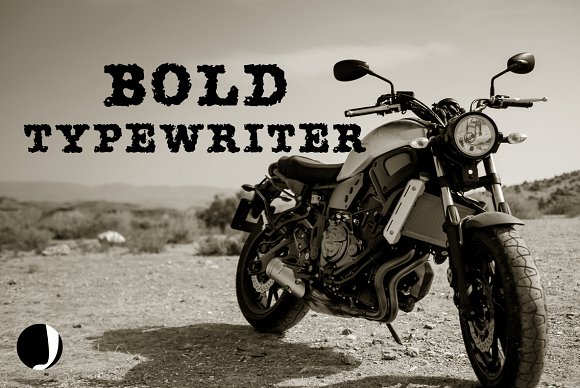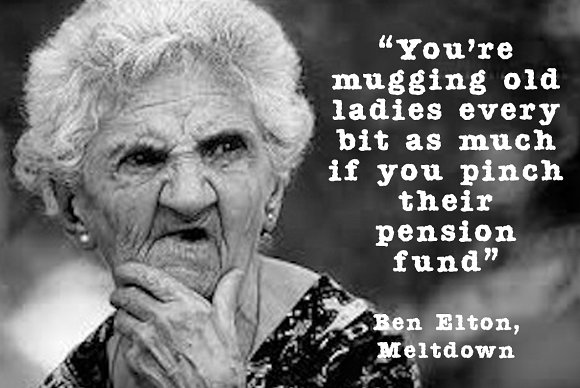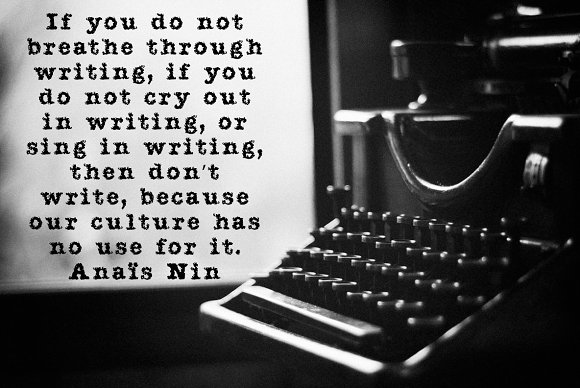
AMTW is a old typewriter style of font based on old American typewriters.
You will get the AMTW font in 3 versions:
AMTW Regular
AMTW Rough
AMTW Rough Rough